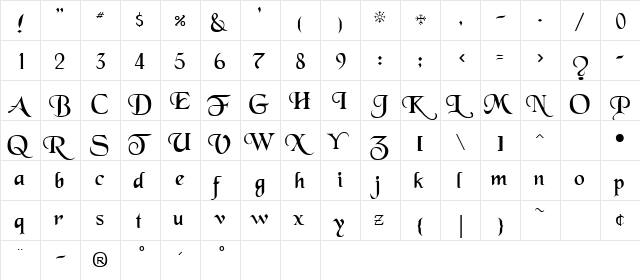
BLACKCHA Regular
Design Context for BLACKCHA Typeface
BLACKCHA is a composed and adaptable typeface that performs quietly and consistently across a wide range of design contexts.